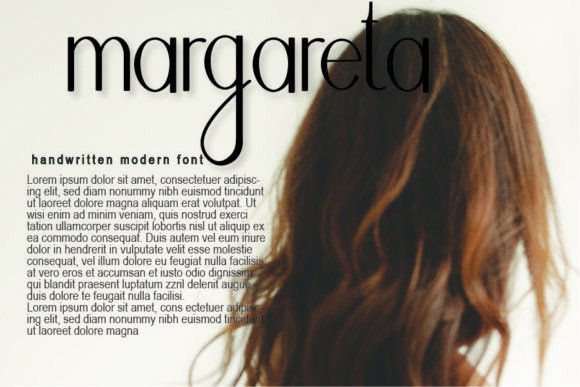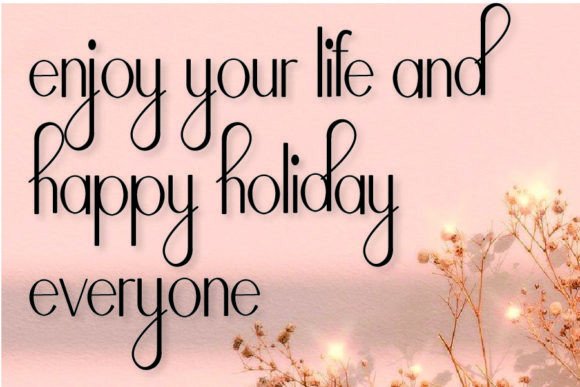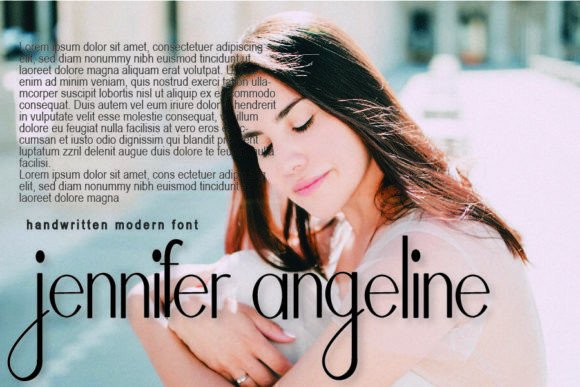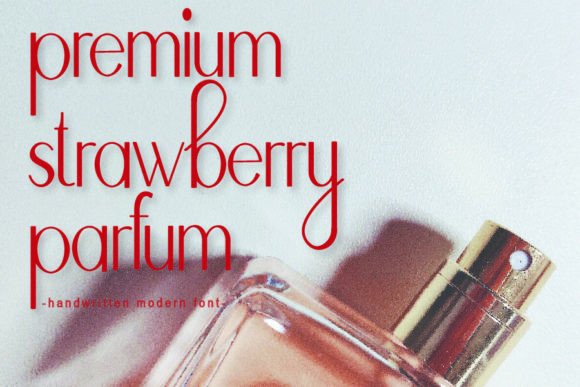
Introduction to Mighty Sunday Font
Have you ever been working on a creative project and you just can’t seem to find the right font to bring it to life? It’s like searching for a needle in a haystack, until one day you stumble upon it. That’s exactly what happened to me when I discovered the Mighty Sunday Font. This high-quality, free download font is a game-changer for any designer looking to add a modern and futuristic touch to their project.
As a designer, I know how valuable it is to have a reliable design resource like the Mighty Sunday Font. Its bold and cool handwritten style makes it perfect for creative Christmas ideas, or any other project that needs a touch of personality. Plus, with a transparent background, you can easily customize it to fit your design needs.
So, if you’re looking for a way to take your design to the next level, keep reading to learn more about the Mighty Sunday Font and how you can use it to make your creative project shine.
Key Features of Mighty Sunday Font
- High-quality design resource with a unique, creative aesthetic suitable for various projects.
- Features a transparent background, allowing for seamless integration with custom designs and backgrounds.
- Perfect for use in creative projects, such as digital art, graphic design, and typography-based designs.
- Comes with a comprehensive character set, including uppercase and lowercase letters, numbers, and punctuation marks.
Honest Review: Mighty Sunday Font
As a designer, I’m always on the lookout for high-quality design resources that can elevate my creative projects. The Mighty Sunday Font is a great example of a free download that’s sure to impress.
Here are some things that work well with the Mighty Sunday Font:
- Unique and creative style that’s perfect for adding some personality to your designs ✨
- High-quality vector graphics that are scalable and print-ready
- Transparent background option, making it easy to use with any design element
- Limited character set, which may not be suitable for long-form text or complex designs ⚠️
- No bold or italic font weights available
Overall, I’m impressed with the Mighty Sunday Font and would definitely recommend it as a design resource. While it may not be perfect, its unique style and high-quality graphics make it a great addition to any creative project.
For optimal results, use the Mighty Sunday Font in combination with other design elements, such as images and shapes. This font is ideal for creating eye-catching social media graphics, flyers, and posters.
The Alex Brush Font is a beautiful and elegant script font that’s perfect for creative projects that require a touch of sophistication. It’s available for free download and features a transparent background, making it ideal for designs that require a subtle and refined aesthetic. Alex Brush Font is a high-quality design resource that’s suitable for a wide range of creative projects.